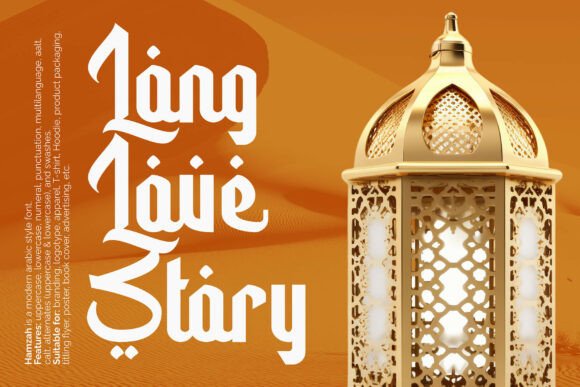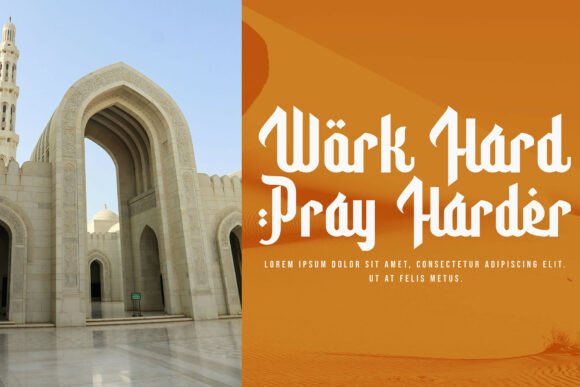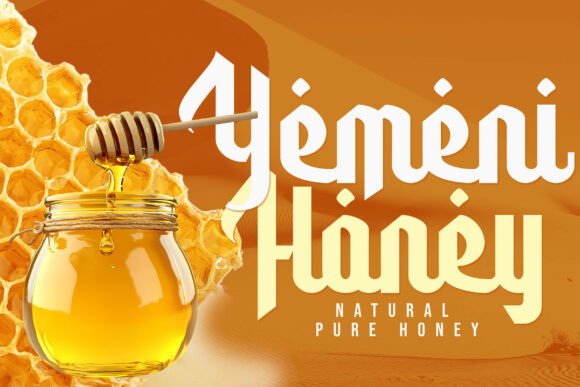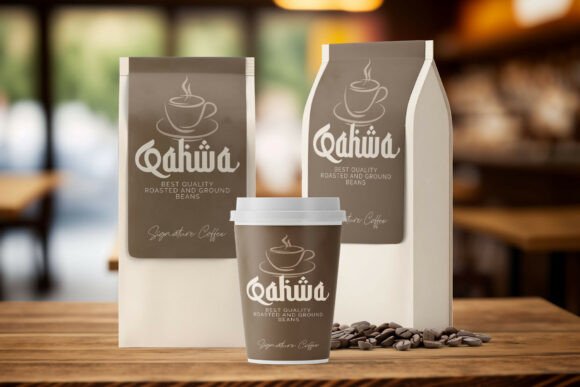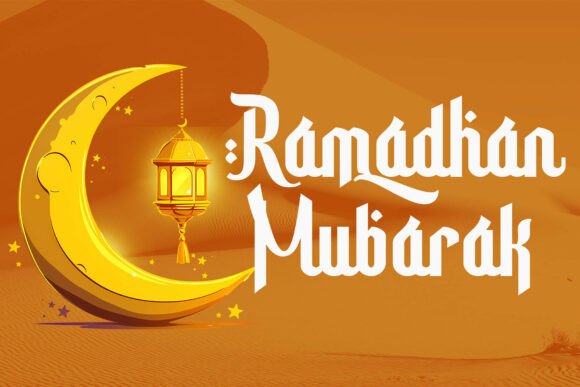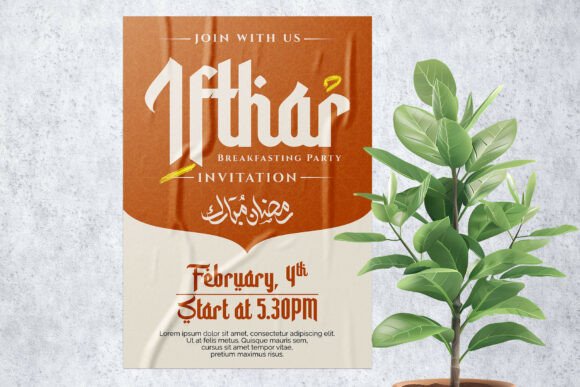
Introducing Hamzah Font: Elevate Your Designs with Elegance and Authenticity
In the world of typography, a font can make all the difference in the success of a design project. For designers and crafters looking to add a touch of elegance and authenticity to their work, the Hamzah Font is an excellent choice. This sleek, modern Arabic-style font is perfectly versatile, making it ideal for a wide range of creative projects, from bold headings and sophisticated branding to apparel, packaging, quotes, flyers, posters, book covers, and advertisements.
A Font Designed with Versatility in Mind
Hamzah Font is specifically designed to cater to designers who work on projects with Islamic themes. Its elegant and authentic style ensures that your designs stand out while maintaining a level of sophistication and refinement. Whether you’re working on a branding project, creating eye-catching apparel, or designing informative posters, Hamzah Font is the perfect companion to help you achieve your creative goals.
Key Features of Hamzah Font
So, what makes Hamzah Font an excellent choice for designers and crafters? Here are some of its key features:
- Full OpenType and Multilingual Support: Hamzah Font comes with full OpenType and multilingual support, ensuring a seamless design experience. This feature allows you to work with a wide range of languages and characters, making it an excellent choice for global projects.
- PUA Encoded: The font is PUA encoded, providing easy access to all characters. This encoding ensures that you can easily navigate and use the font’s various features, making the design process more efficient.
- Comprehensive Character Set: Hamzah Font includes uppercase and lowercase letters, numerals, punctuation, alternate styles, and stylish swashes. This comprehensive character set gives you the flexibility to experiment with different design elements and create unique pieces.
Use Cases for Hamzah Font
Hamzah Font is an incredibly versatile font that can be used in a wide range of design projects. Here are some use cases to inspire your creativity:
- Branding: Use Hamzah Font to create sophisticated brand identities that exude elegance and refinement.
- Apparel: Design stylish apparel, such as t-shirts, hoodies, and hats, with Hamzah Font’s elegant and modern style.
- Packaging: Elevate your packaging designs with Hamzah Font’s refined style, perfect for luxury products and high-end brands.
- Quotes and Flyers: Create inspiring quotes and eye-catching flyers with Hamzah Font’s stylish swashes and elegant lettering.
- Posters and Book Covers: Design stunning posters and book covers that showcase Hamzah Font’s versatility and sophistication.
- Advertisements: Use Hamzah Font to create captivating advertisements that grab attention and leave a lasting impression.
In conclusion, Hamzah Font is an exceptional choice for designers and crafters looking to add a touch of elegance and authenticity to their creative projects. Its sleek, modern Arabic-style design, versatility, and comprehensive features make it an excellent addition to any design workflow. Whether you’re working on a branding project, apparel design, or packaging, Hamzah Font is sure to elevate your designs and help you achieve your creative goals.